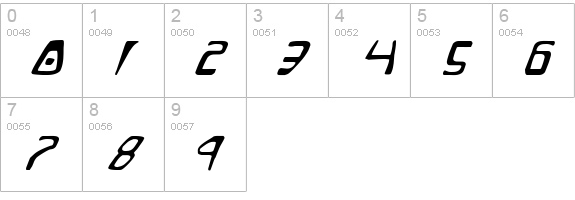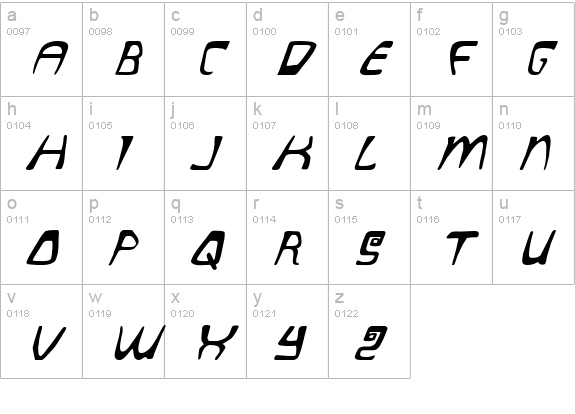
Quatl Italic Font Details
Quatl Italic is a distinctive, italic variant in the Quatl typeface family \xE2\x80\x94 well suited to design and typography projects.
Quatl Italic is a captivating and stylish font that exudes elegance and sophistication. Its sleek and slender letterforms are delicately slanted, adding a touch of modernity to any design project. With its flowing curves and graceful angles, Quatl Italic is the perfect choice for those seeking a typeface that effortlessly combines both beauty and functionality. This exquisite font is meticulously crafted, paying attention to every detail to ensure a visually stunning result. From the gentle tapering of the strokes to the precise spacing between characters, Quatl Italic offers a seamless reading experience that is both comfortable and visually pleasing. One of the most remarkable aspects of Quatl Italic is that it is absolutely free. Yes, you read that right! This incredible font is freely available to download at FontsMarket.com. Whether you are a professional designer or an enthusiastic hobbyist, you can now access this remarkable font without any cost or hassle. It's truly a gift to the creative community, allowing everyone to elevate their designs without breaking the bank. Imagine the possibilities with Quatl Italic. From elegant wedding invitations to sophisticated branding materials, this font will effortlessly elevate your projects to new heights. Its versatility allows it to shine in both print and digital mediums, making it a valuable asset for any designer. So why wait? Enhance your designs with the timeless beauty of Quatl Italic. Download it for free at FontsMarket.com and unlock a world of possibilities. Let this font be the secret weapon in your creative arsenal, as it adds a touch of class and sophistication to everything it touches. Your audience will be captivated by the allure of Quatl Italic, and your designs will never be the same again.